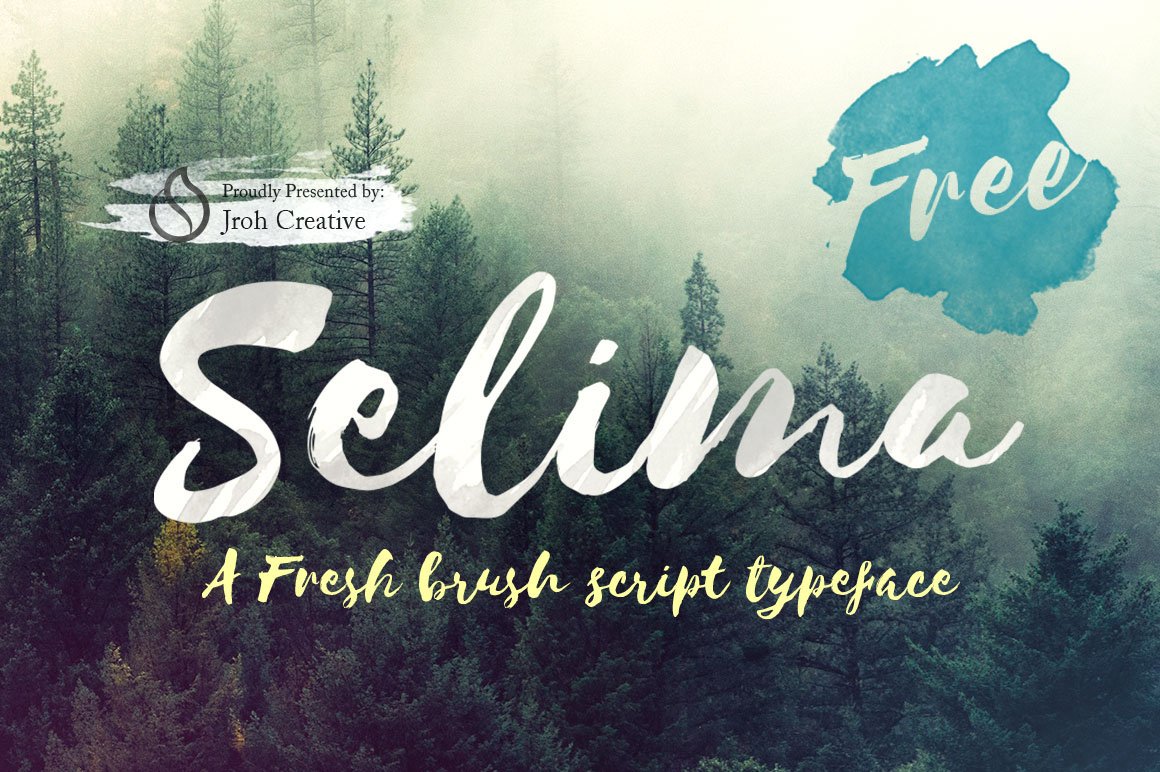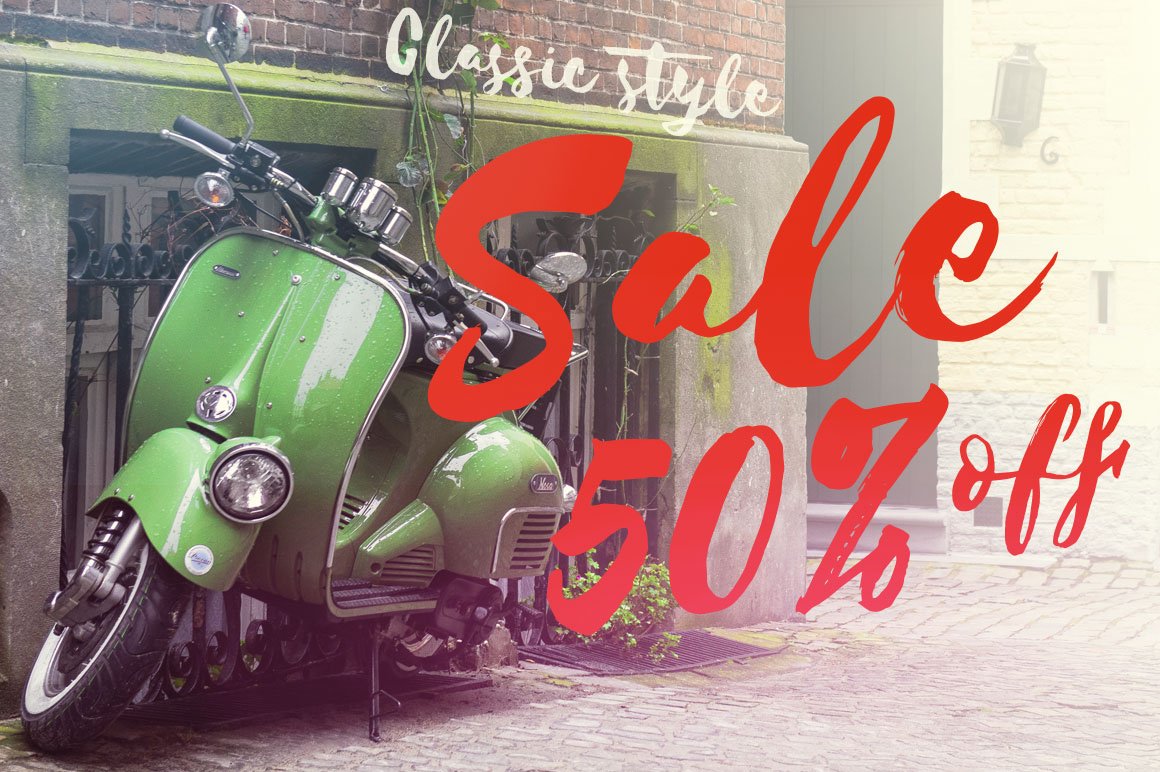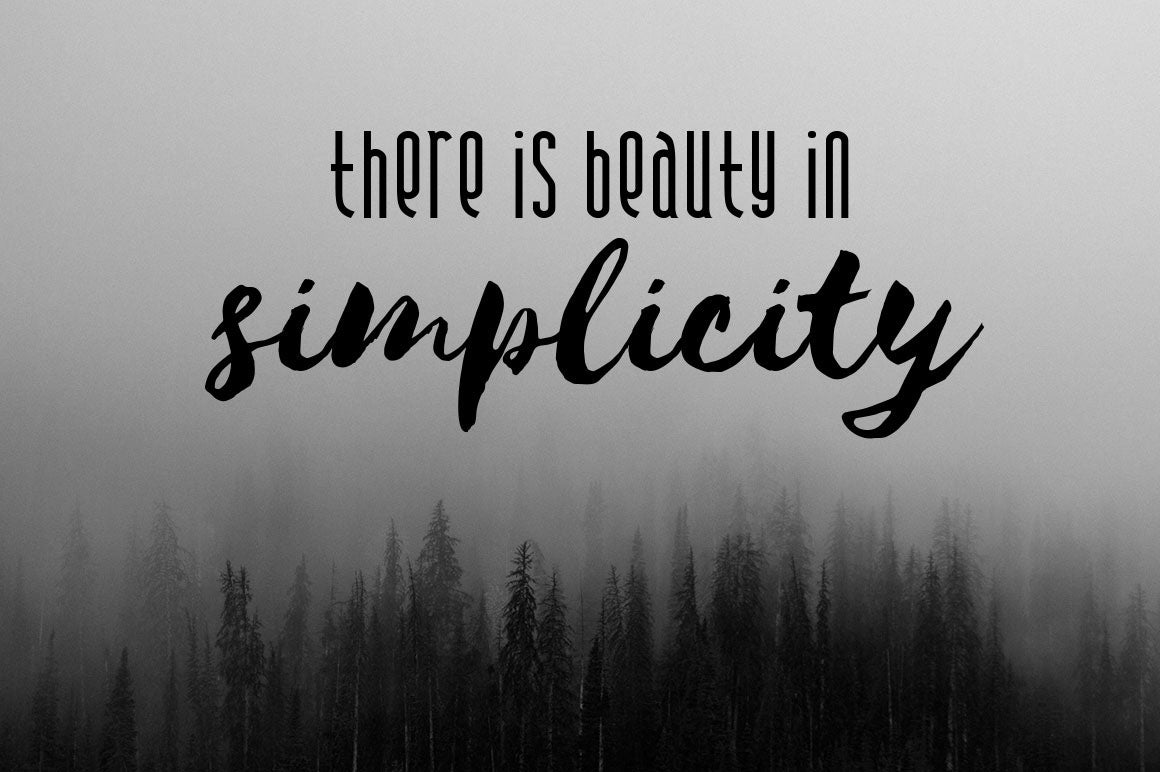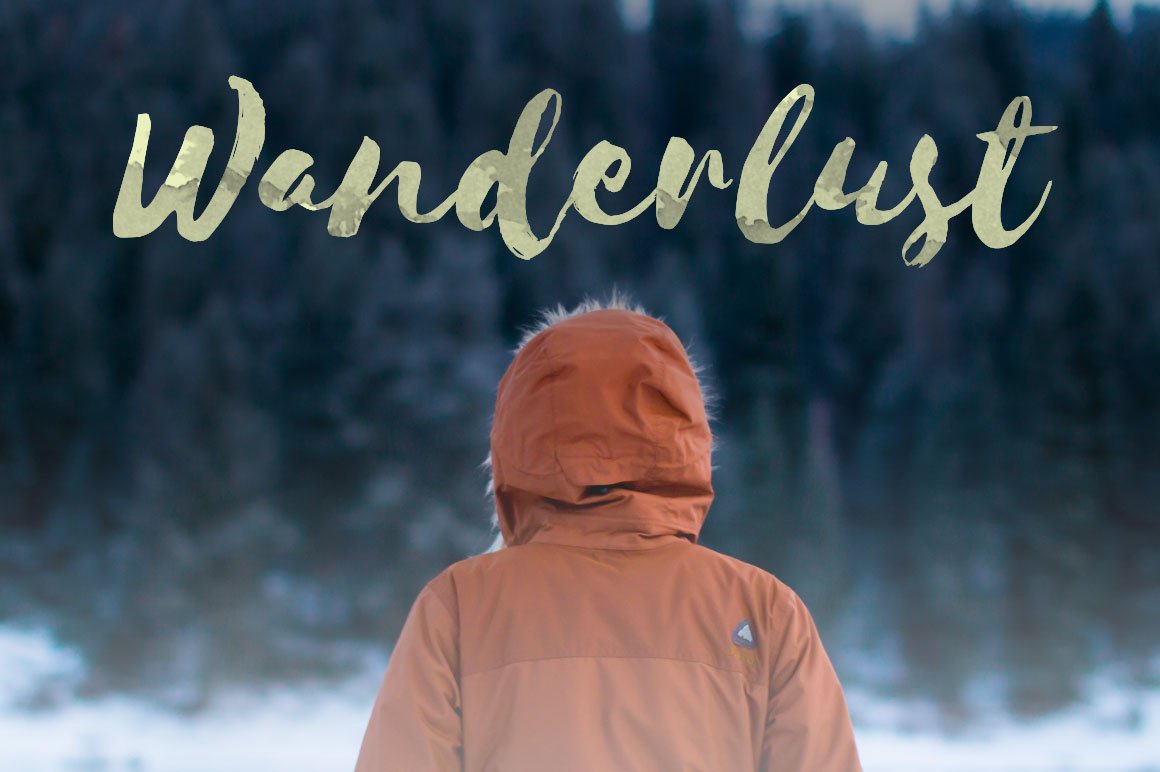
We're glad to feature this gorgeous selima script font - free download. This free font file was found from the amazing source called Jroh Creative. Showcase your designs like a graphic design pro by adding a new touch with this fancy font.